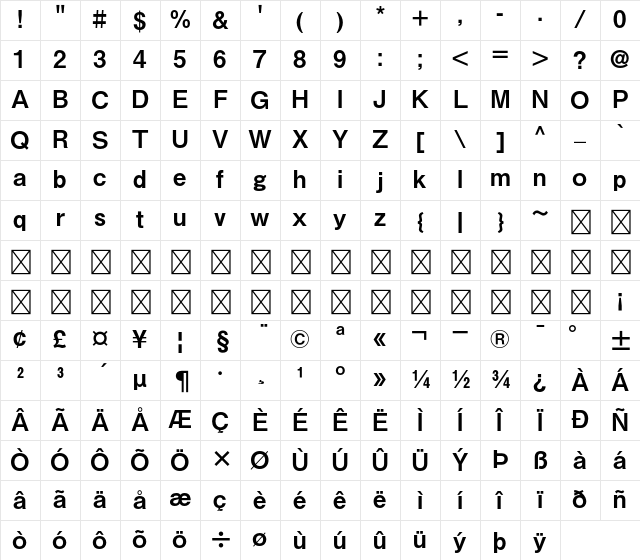
A-OTF Midashi Go MB31 Pr5 MB31
Design Context for A-OTF Midashi Go MB31 Pr5
A-OTF Midashi Go MB31 Pr5 is a composed and adaptable typeface that performs quietly and consistently across a wide range of design contexts.